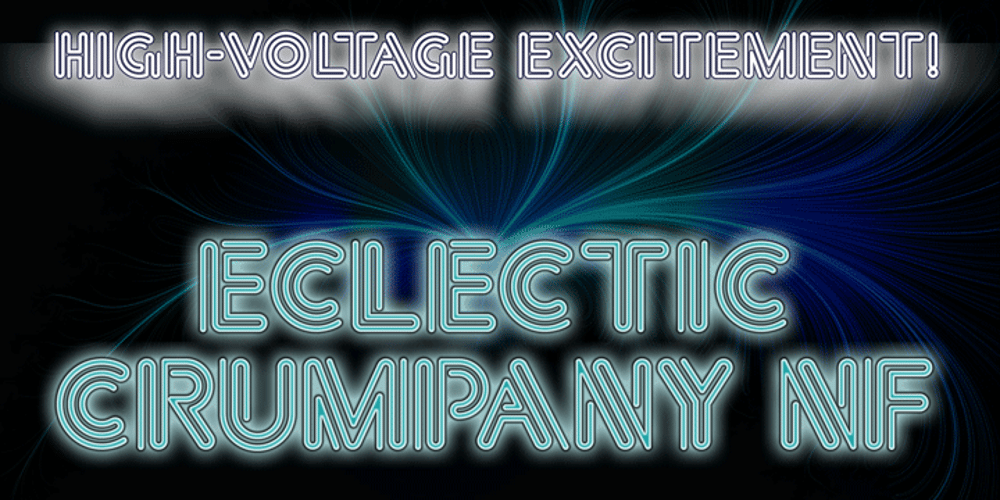
Eclectic Crumpany NF Font Family was designed by Nick Curtis and published by Nick’s Fonts. Eclectic Crumpany NF contains 1 styles and family package options. No mystery here: this monocase neon face is based on the old logotype lettering for The Electric Company TV show. This version adds a little jolt with happy outlet characters in the dagger and double dagger positions, a plug at the section mark, and a rather novel treatment of the mu character. This font contains the complete Latin language character set (Unicode 1252) plus support for Central European (Unicode 1250) languages as well.